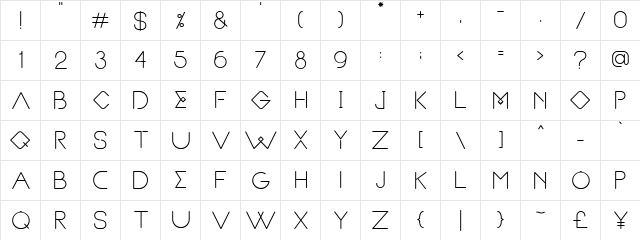
Heimdal Normal
| Foundry | Faqih |
Design Context for Heimdal Typeface
Heimdal offers clean, dependable letterforms without strong stylistic allegiance, making it a practical choice for designers who need flexibility.
Pro Tip: Use Heimdal in both headline and body roles to test its range before committing to a single application.